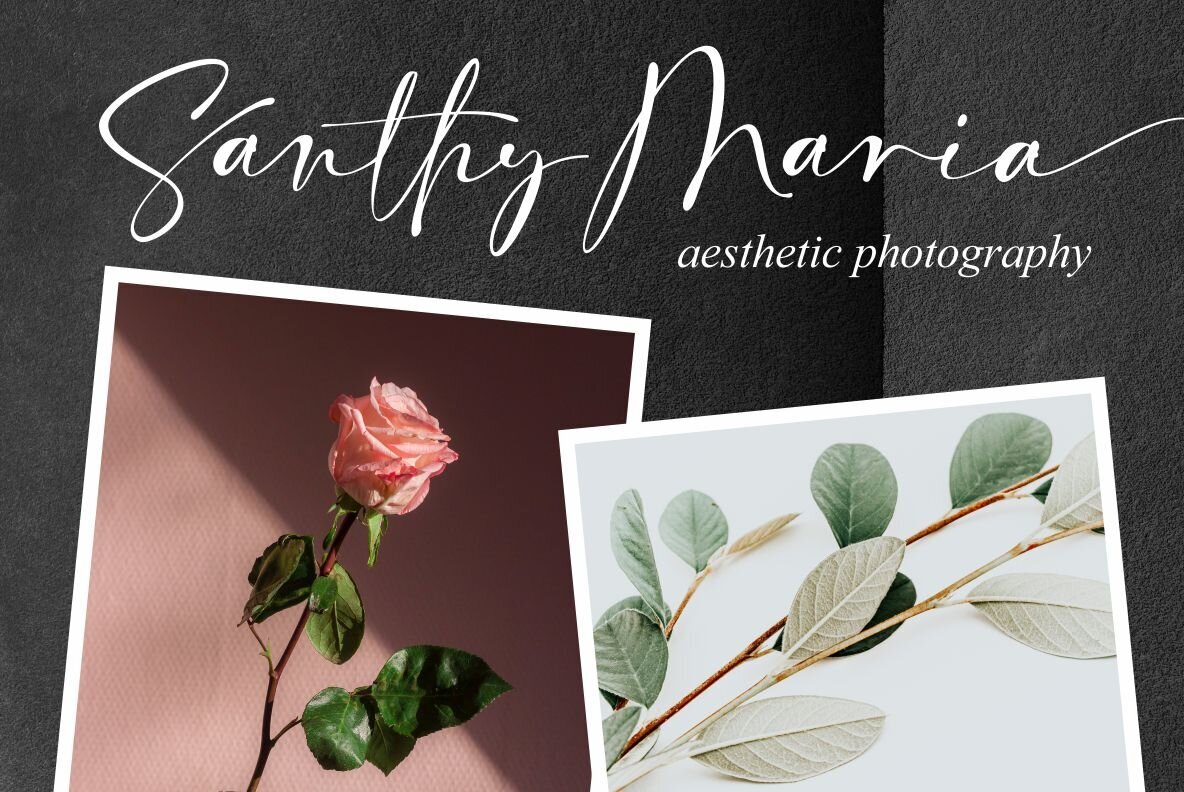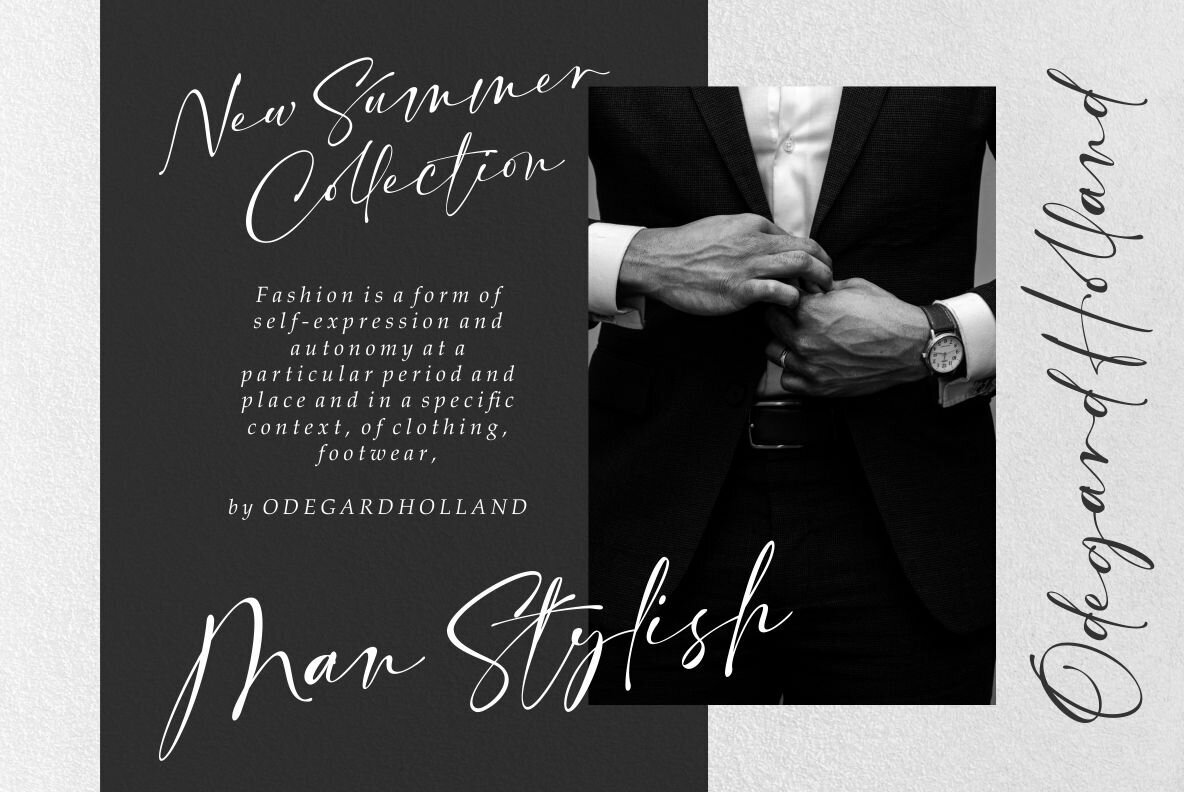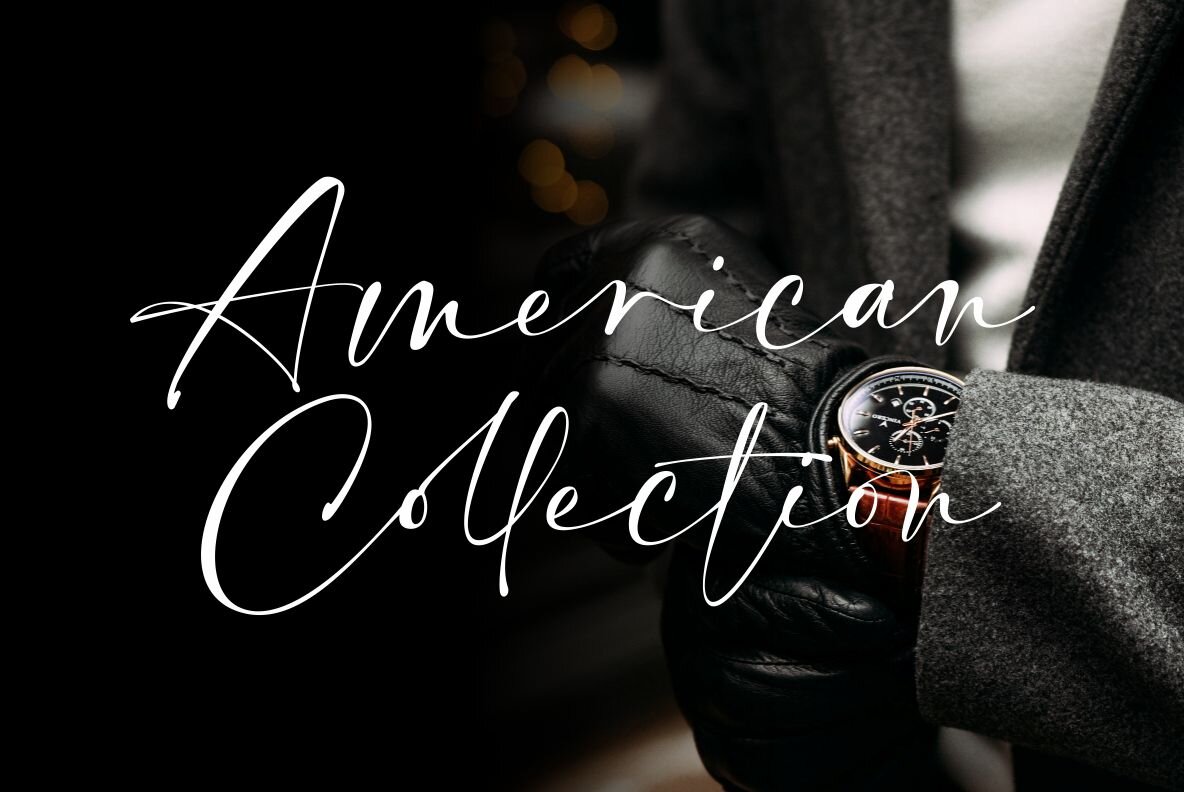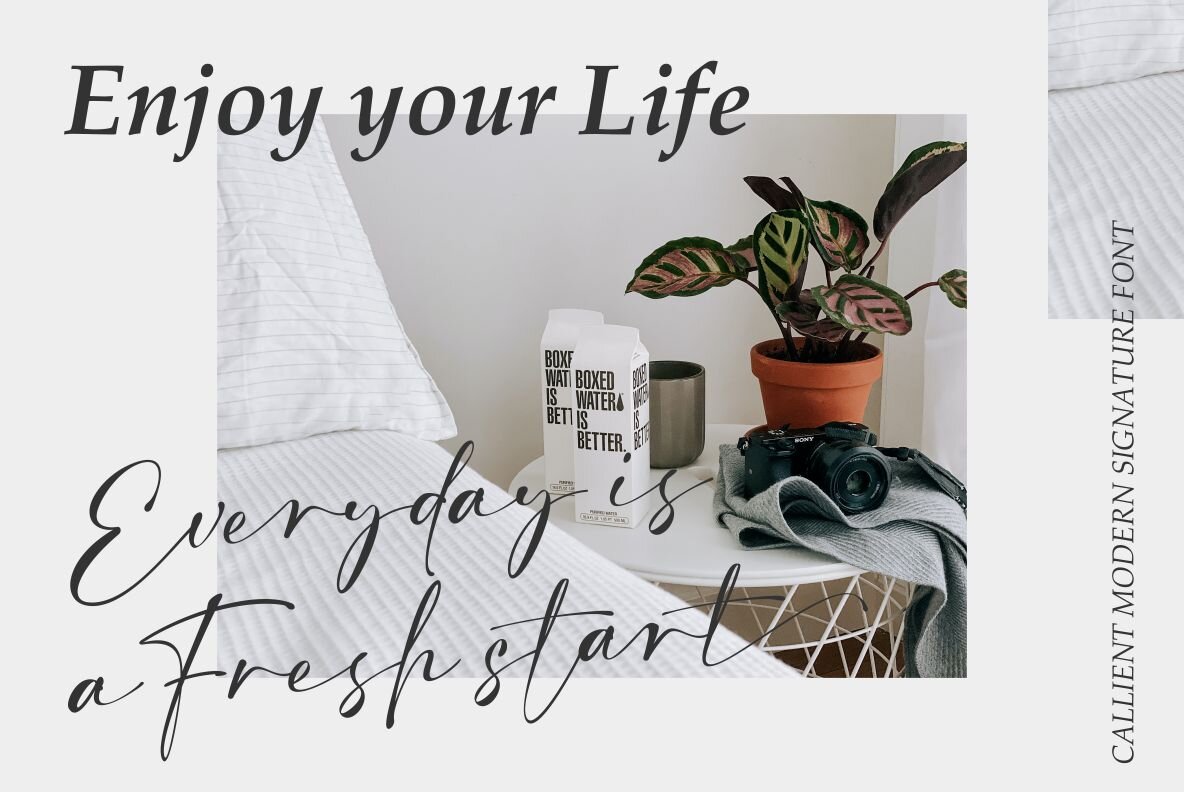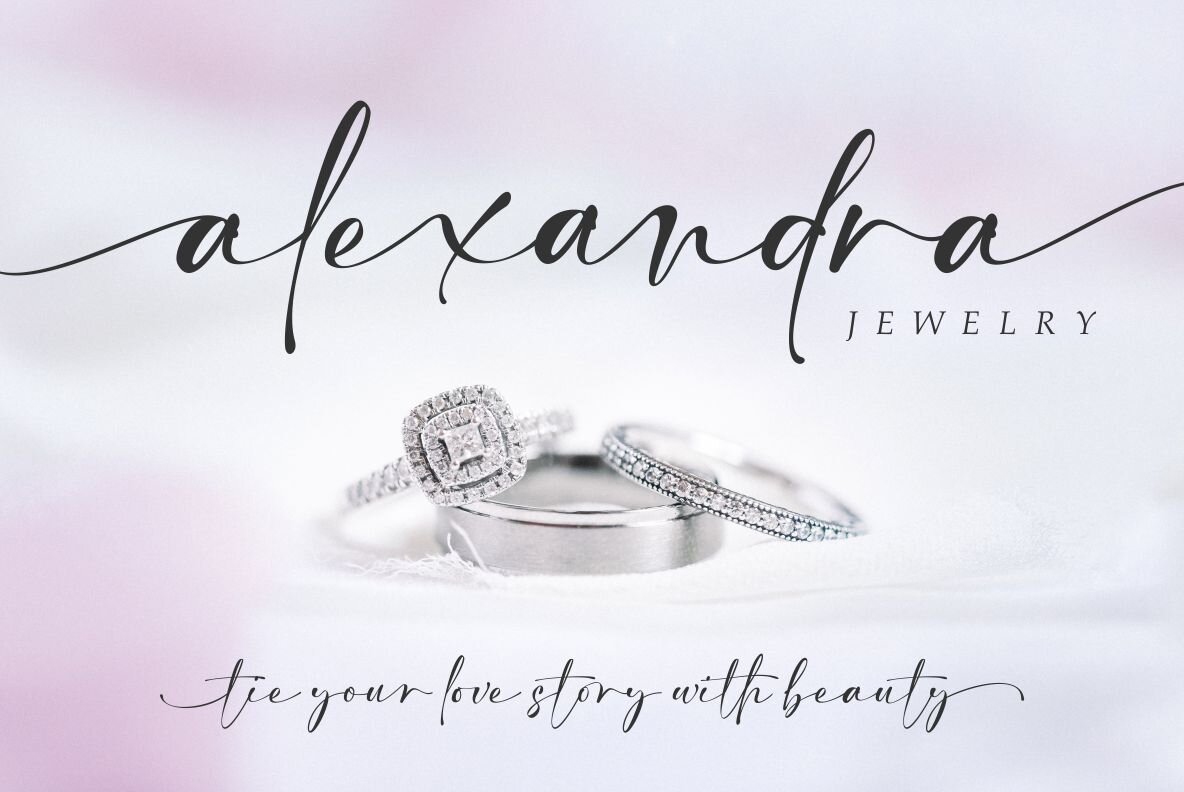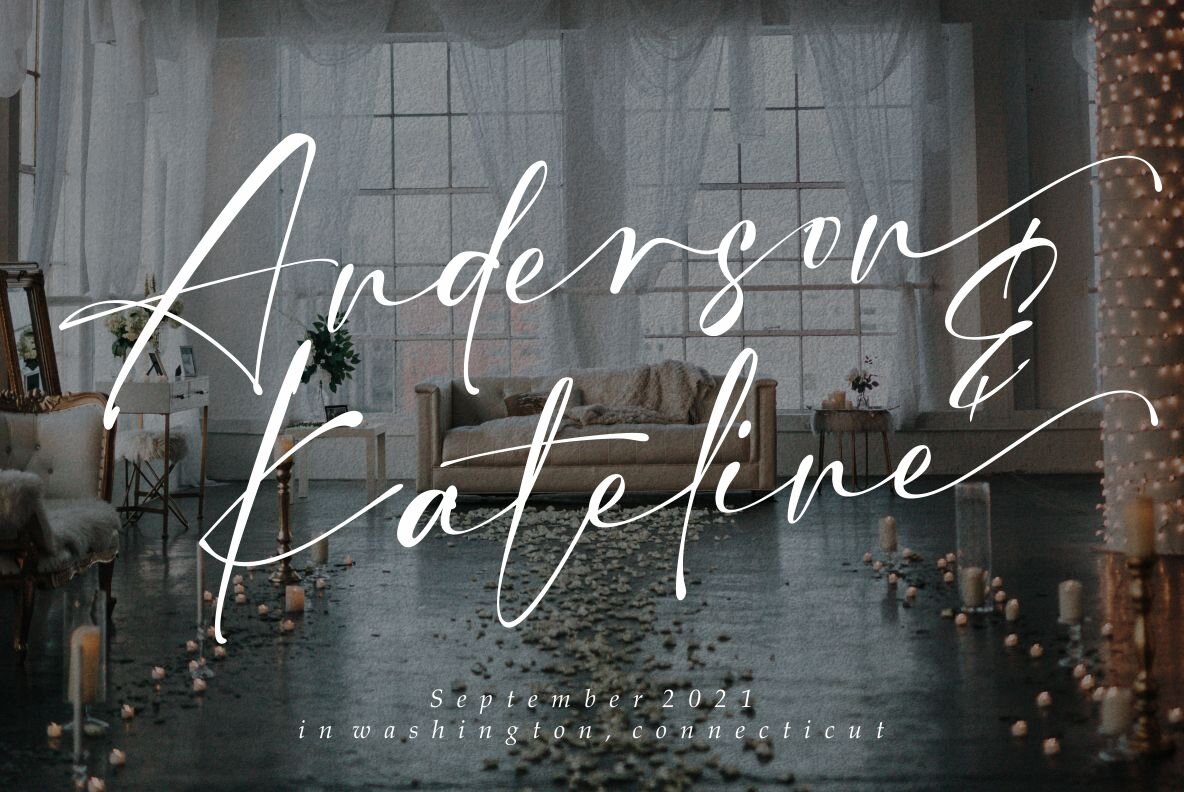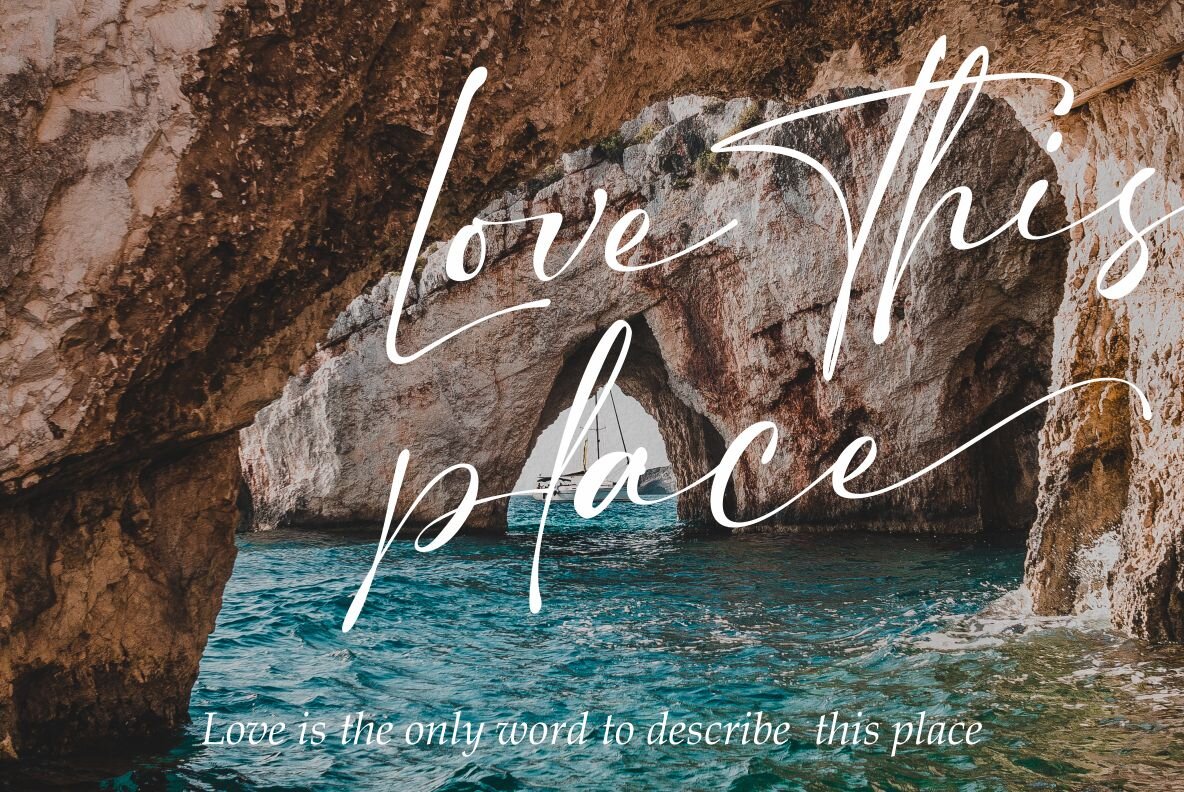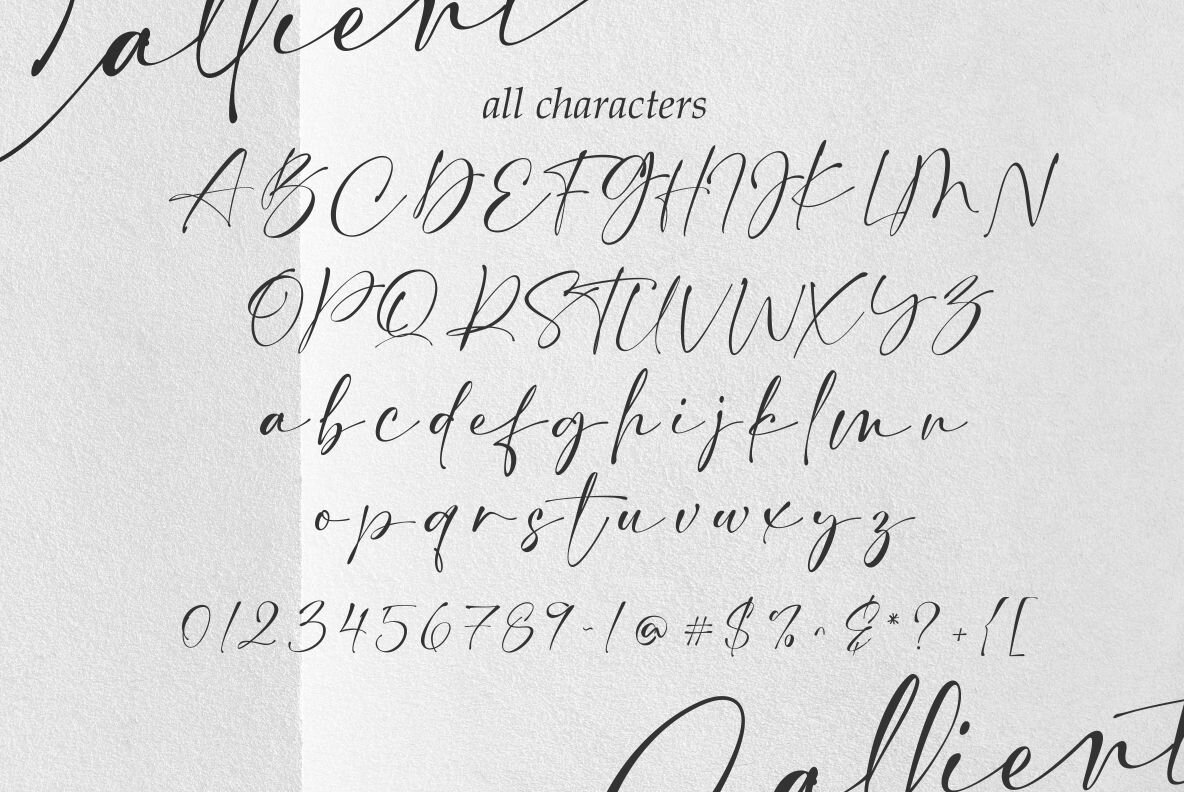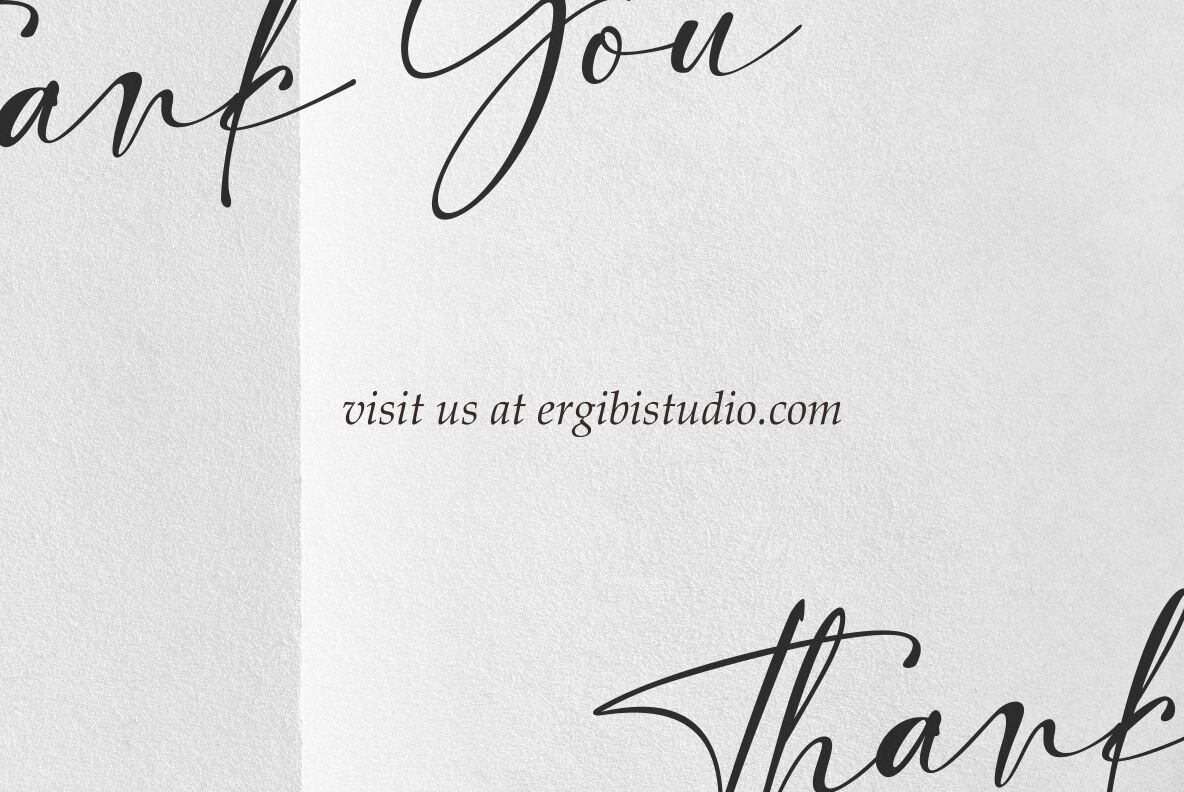
Callient Font
Callient Regular
Looking for a modern, handwritten font to elevate your branding, invitations, quotes, watermarks, advertisements, product designs, social media posts, stationery, labels, and more? Look no further than Callient, the latest signature font offering from Ergibi Studio. With uppercase and lowercase letters, numbers, punctuation, symbols, binders, and multilingual support, Callient has everything you need for a professional, cohesive look.